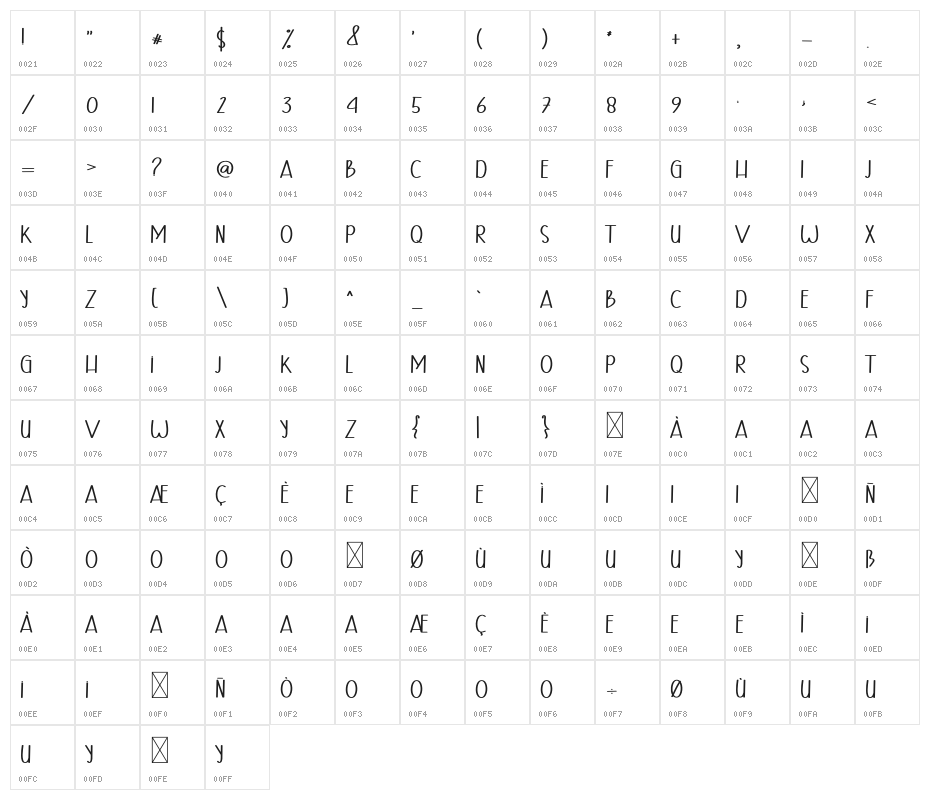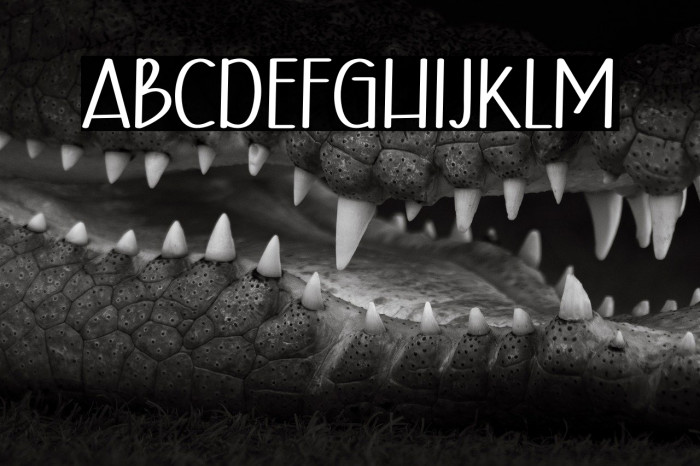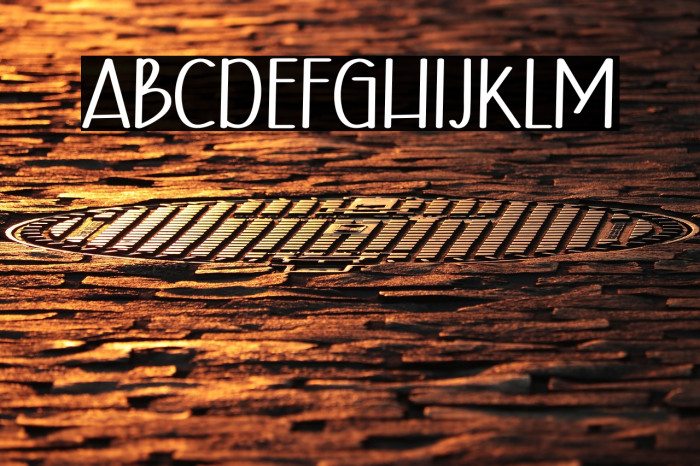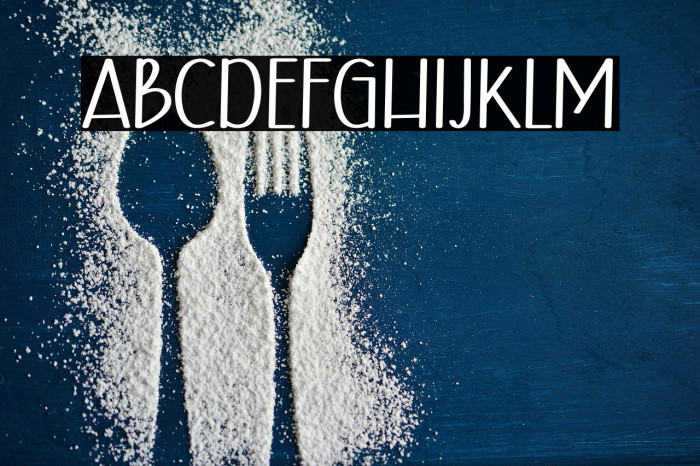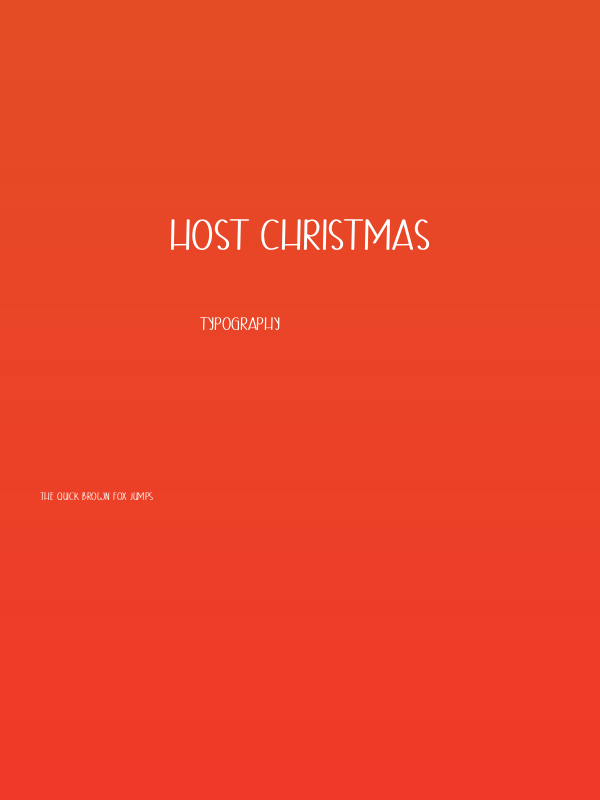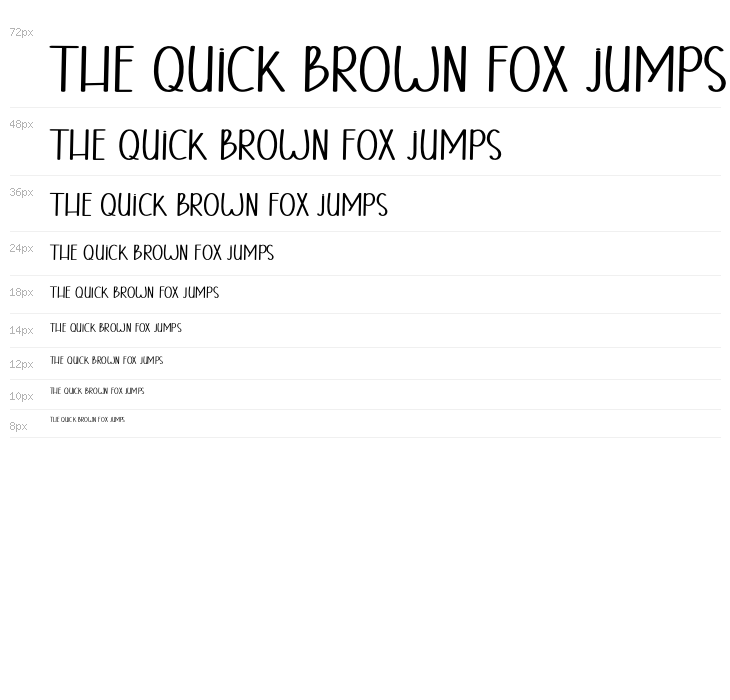
Host Christmas Font
Host Christmas Description
This font features a playful and whimsical style, characterized by its handwritten appearance. The letters have a casual, flowing form with slightly irregular strokes that add a touch of charm and personality. The uppercase and lowercase letters maintain a consistent style, with rounded edges and a slight tilt that enhances its informal look. The numbers and special characters follow the same design principles, ensuring a cohesive appearance across all elements. This font exudes a friendly and approachable vibe, making it suitable for creative and informal projects.
| Proposed Projects | Ideal for greeting cards, invitations, children's books, and playful branding projects. |